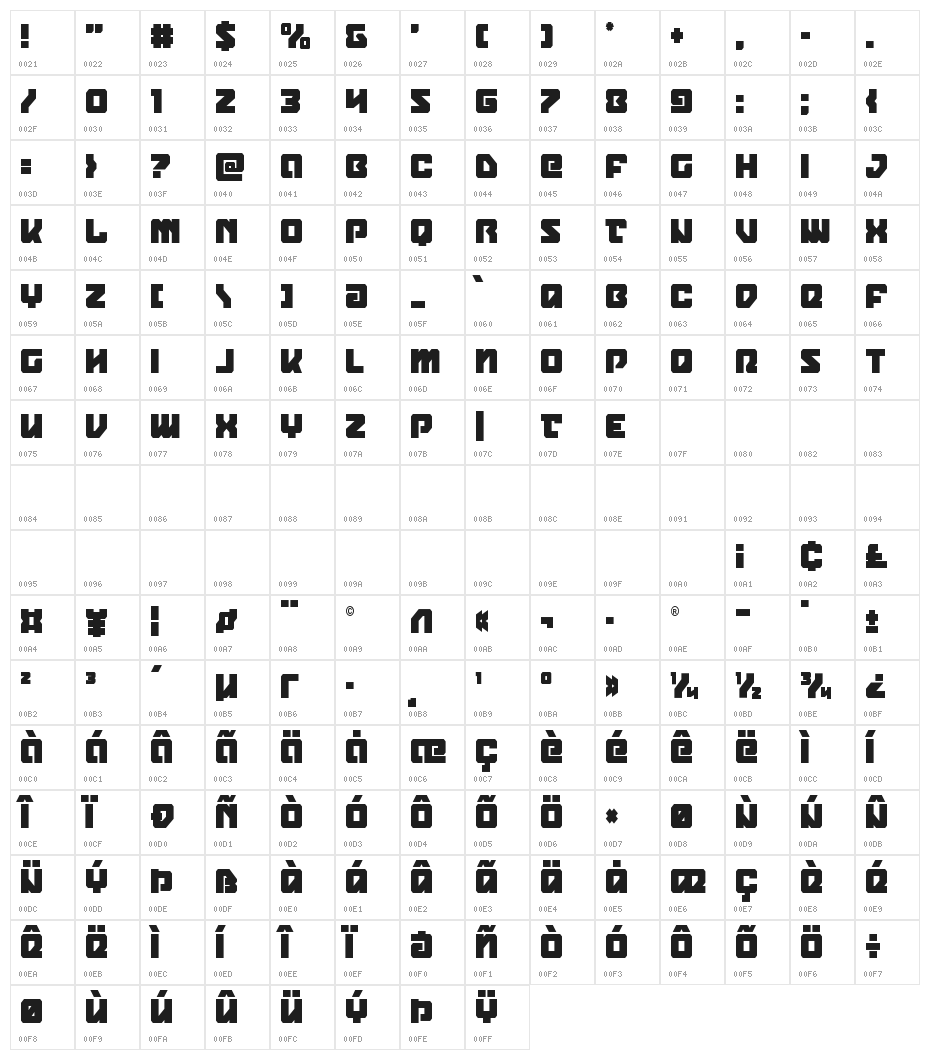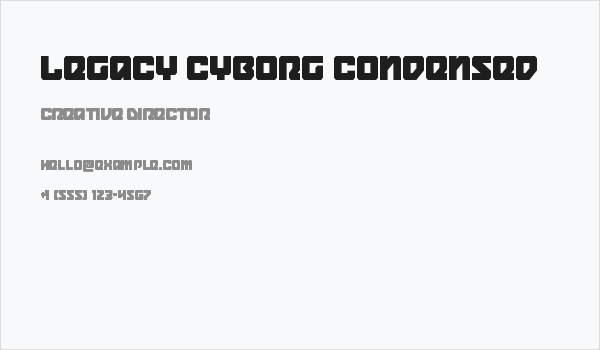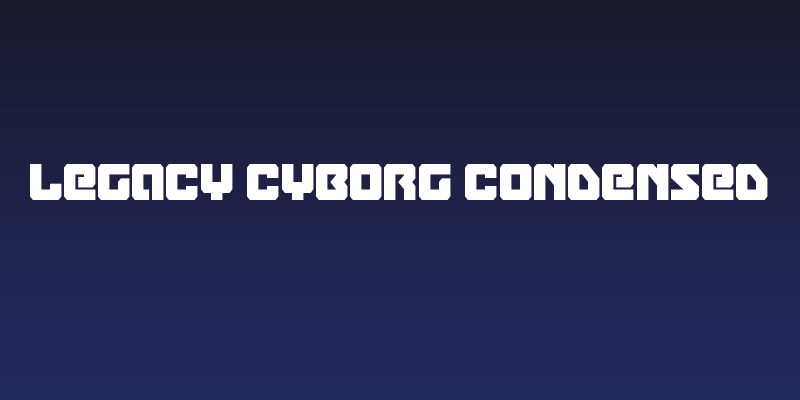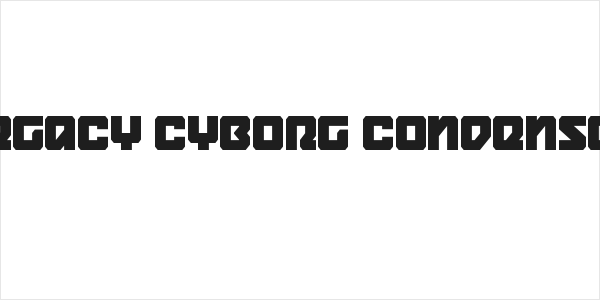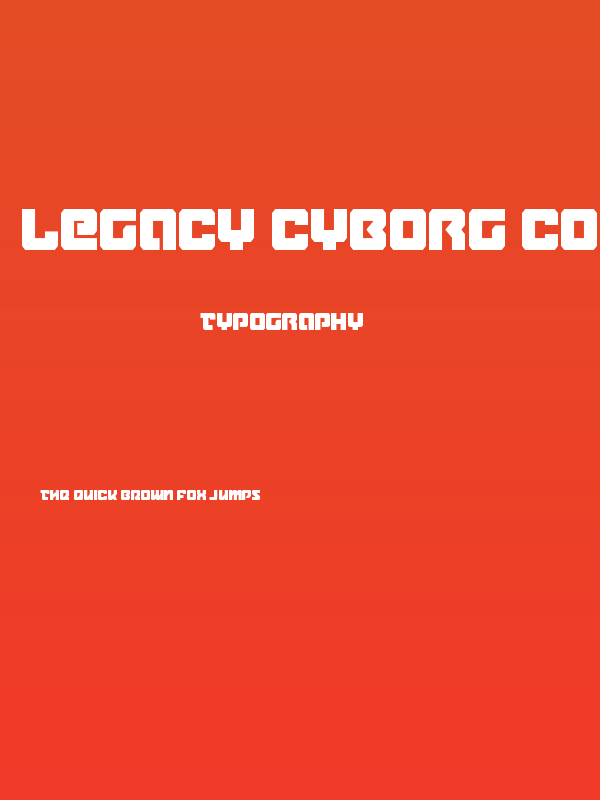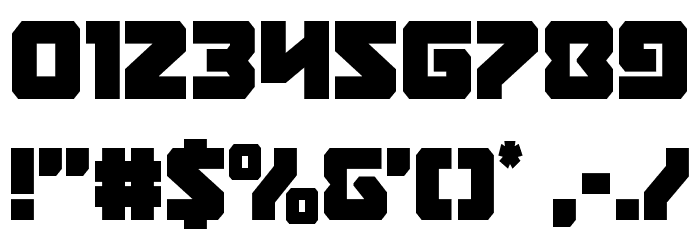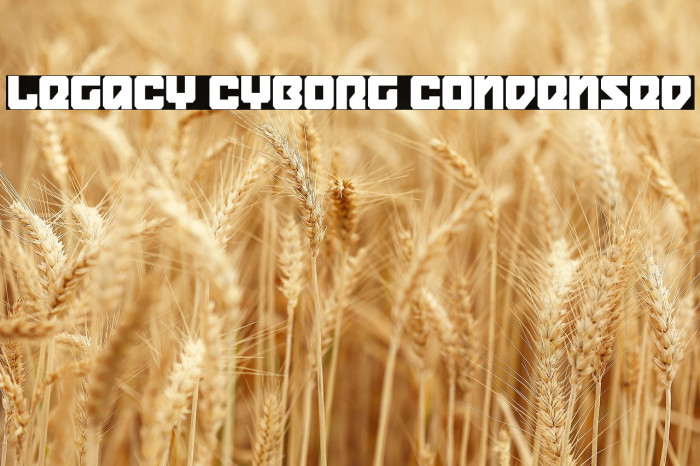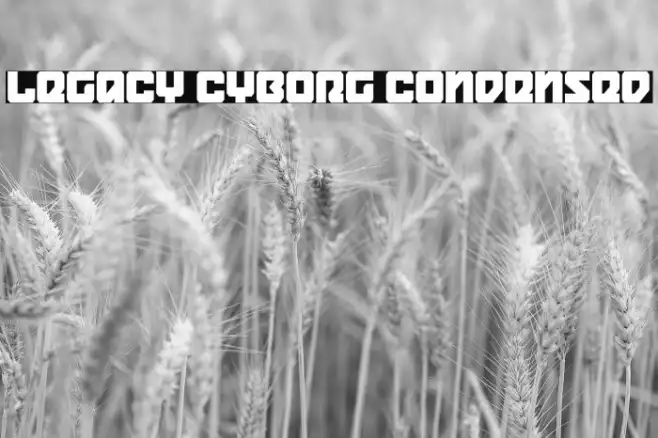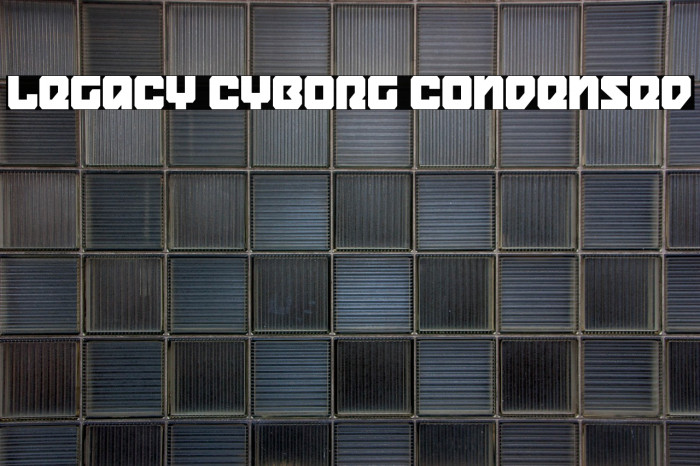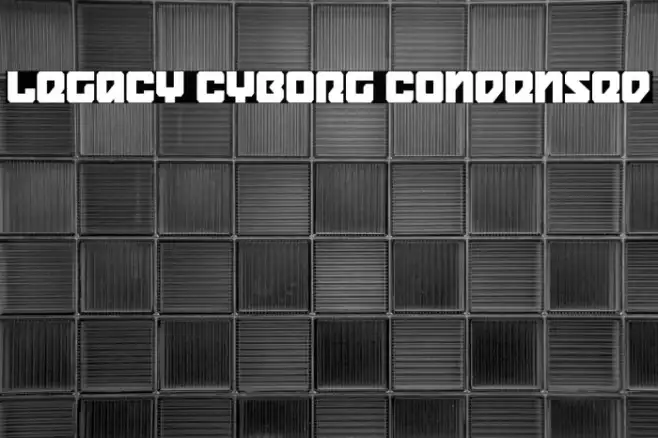
Legacy Cyborg Condensed Font
Legacy Cyborg Condensed Description
This font features a bold, futuristic design with a distinctly angular and geometric style. The characters are condensed, creating a compact and efficient use of space. The sharp edges and block-like forms give it a strong, industrial feel, reminiscent of digital or sci-fi themes. The uniformity in stroke width across all characters contributes to a cohesive and robust appearance. This font is highly legible and impactful, making it suitable for attention-grabbing headlines or titles.
| Proposed Projects | Ideal for sci-fi movie posters, video game titles, tech branding, and futuristic-themed designs. |